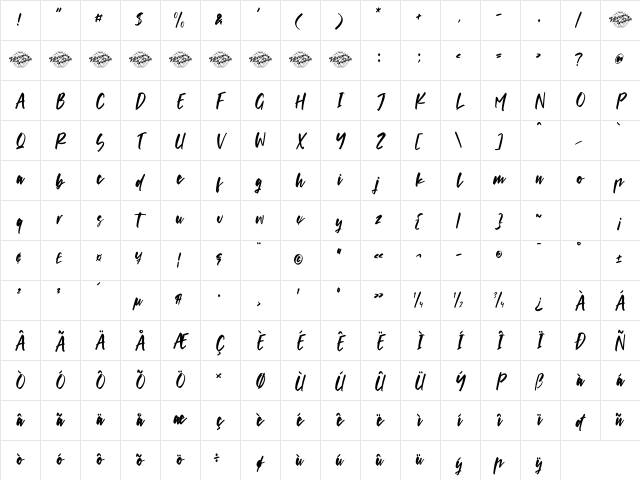
Shadows Highstter DEMO VERSION is built around its visual character rather than neutral utility - its distinctive forms are designed to make an impression at display sizes.
Font Pairing: Pair with a clean neutral sans-serif for body copy to let Shadows Highstter DEMO VERSION's character lead without overwhelming the composition.
Pro Tip: Use Shadows Highstter DEMO VERSION exclusively at display sizes - it was designed to be seen, not read at length. Let a neutral companion handle body copy.